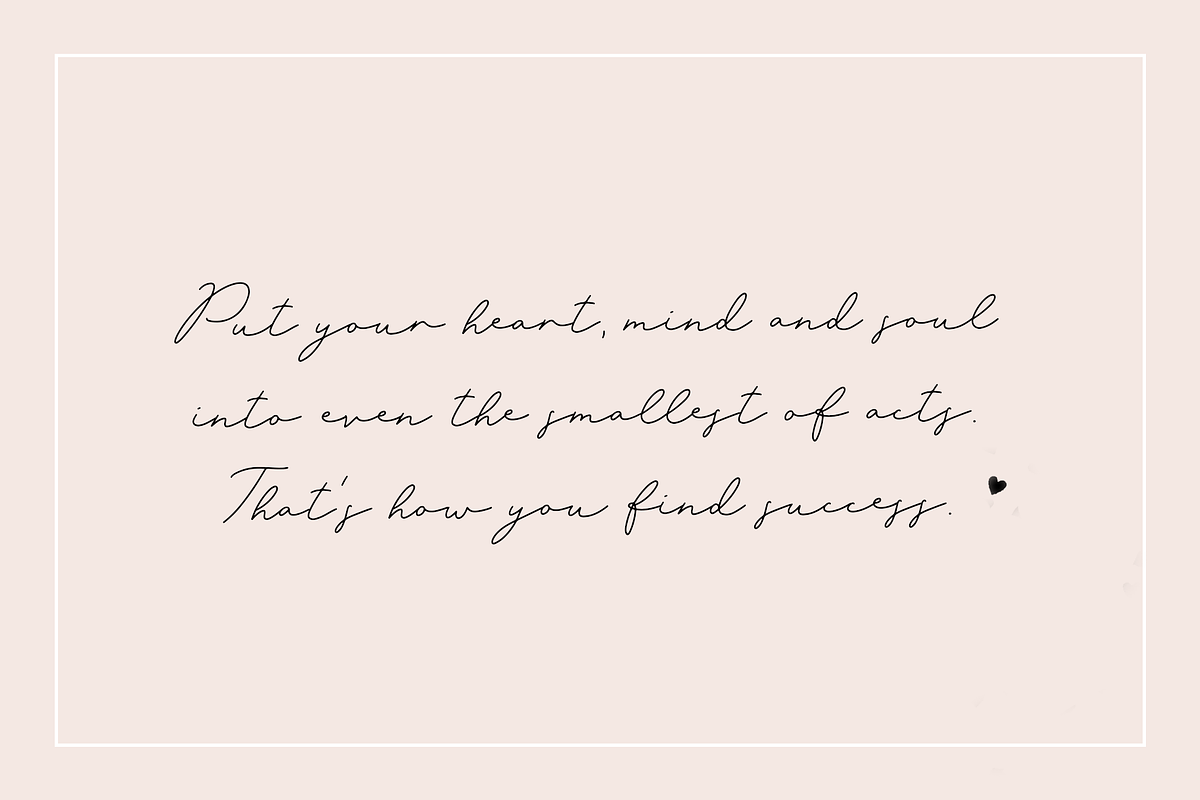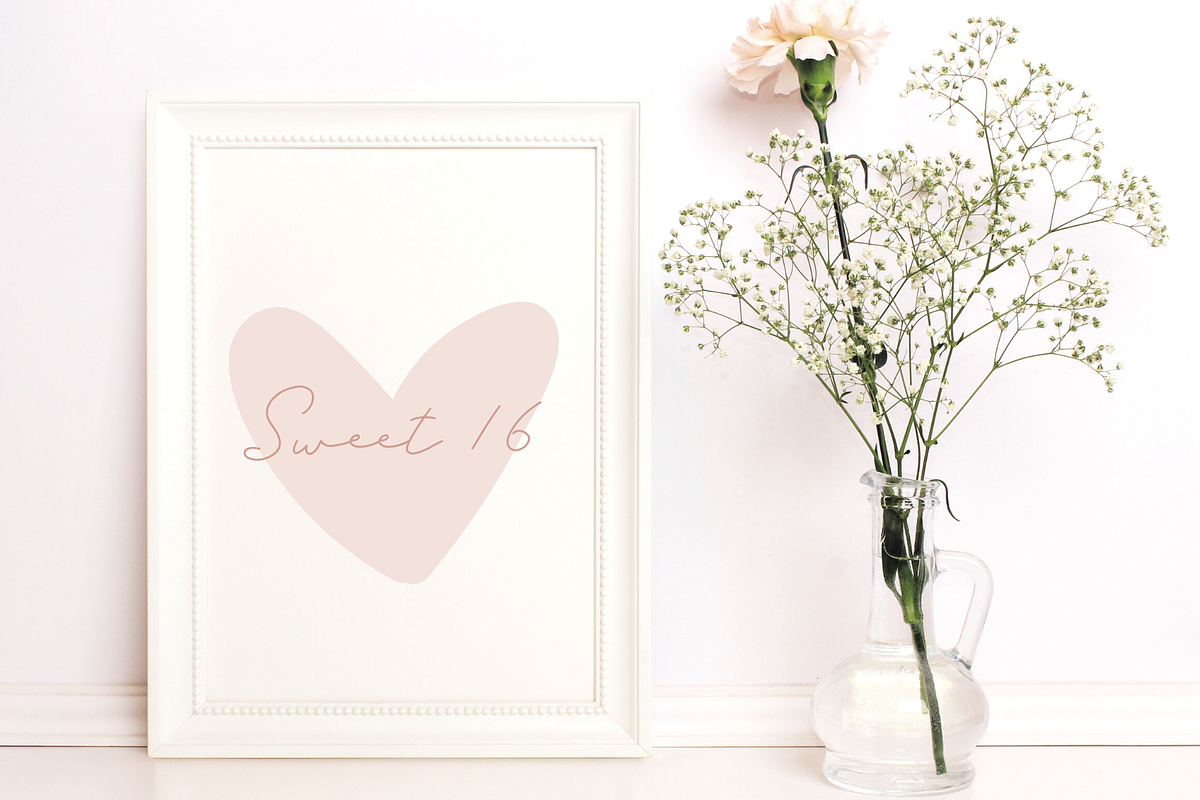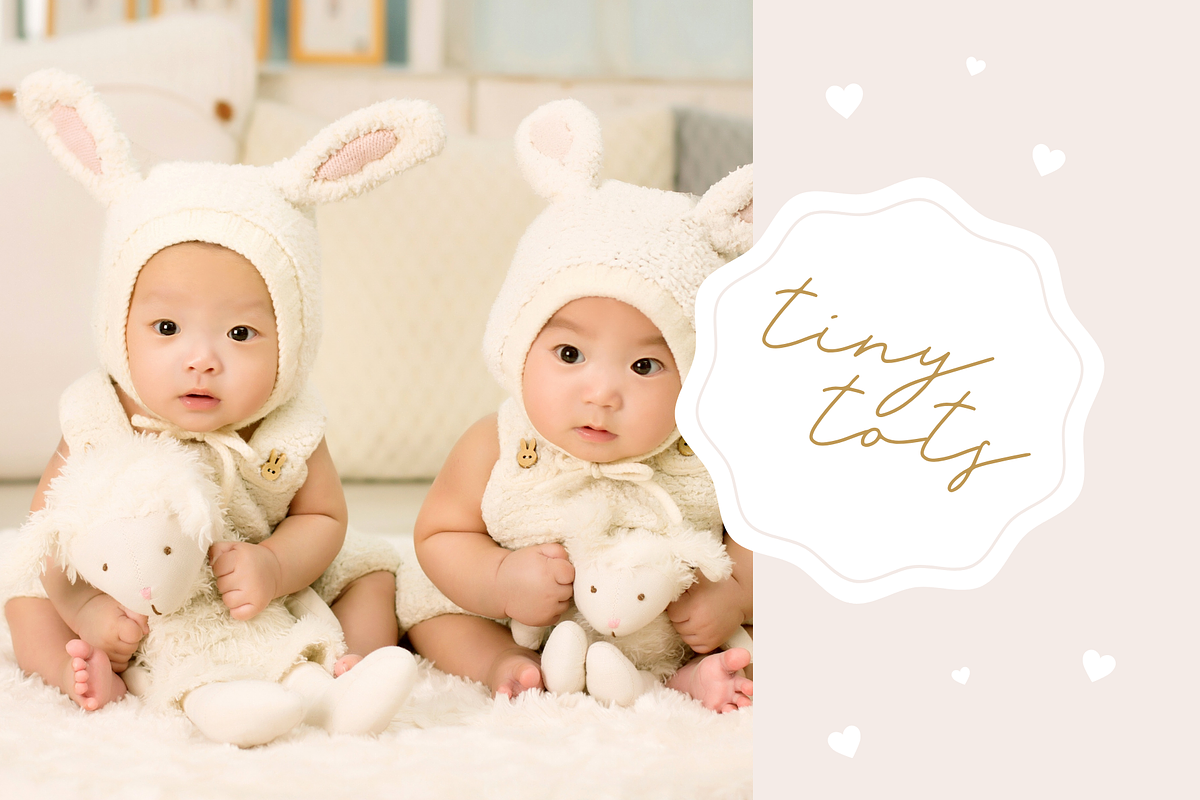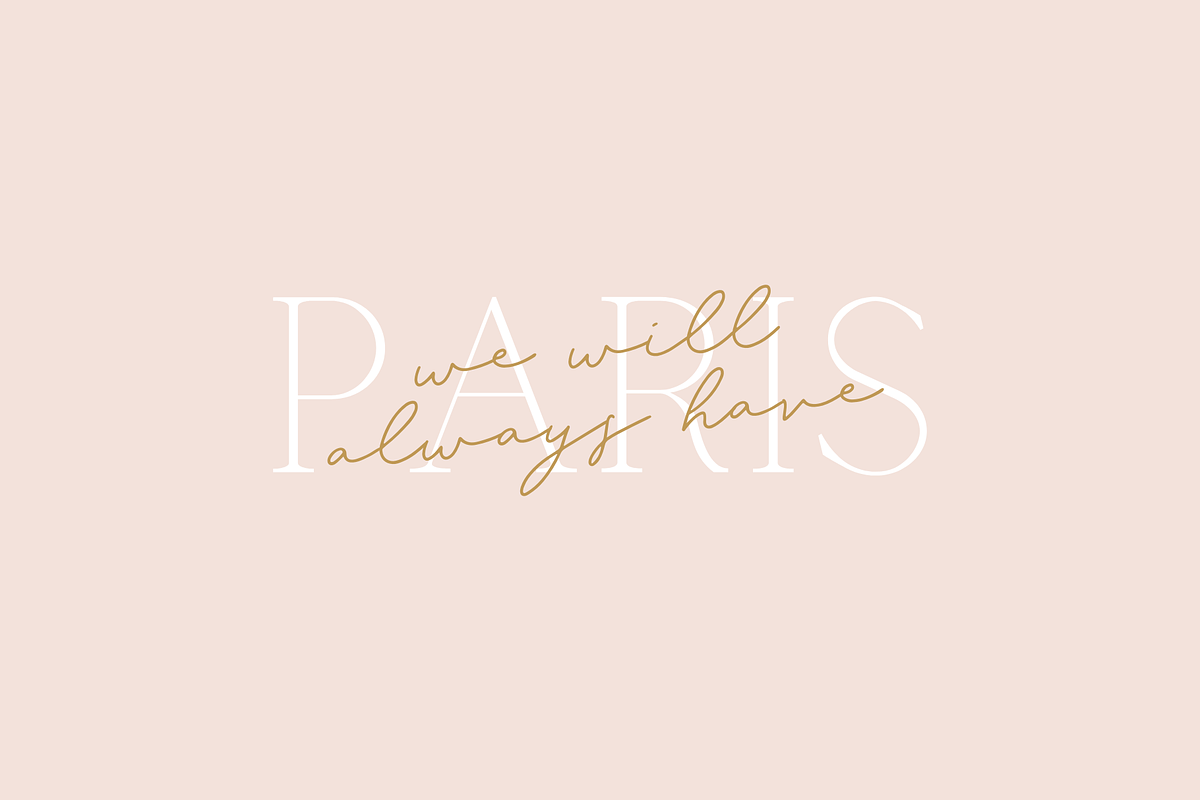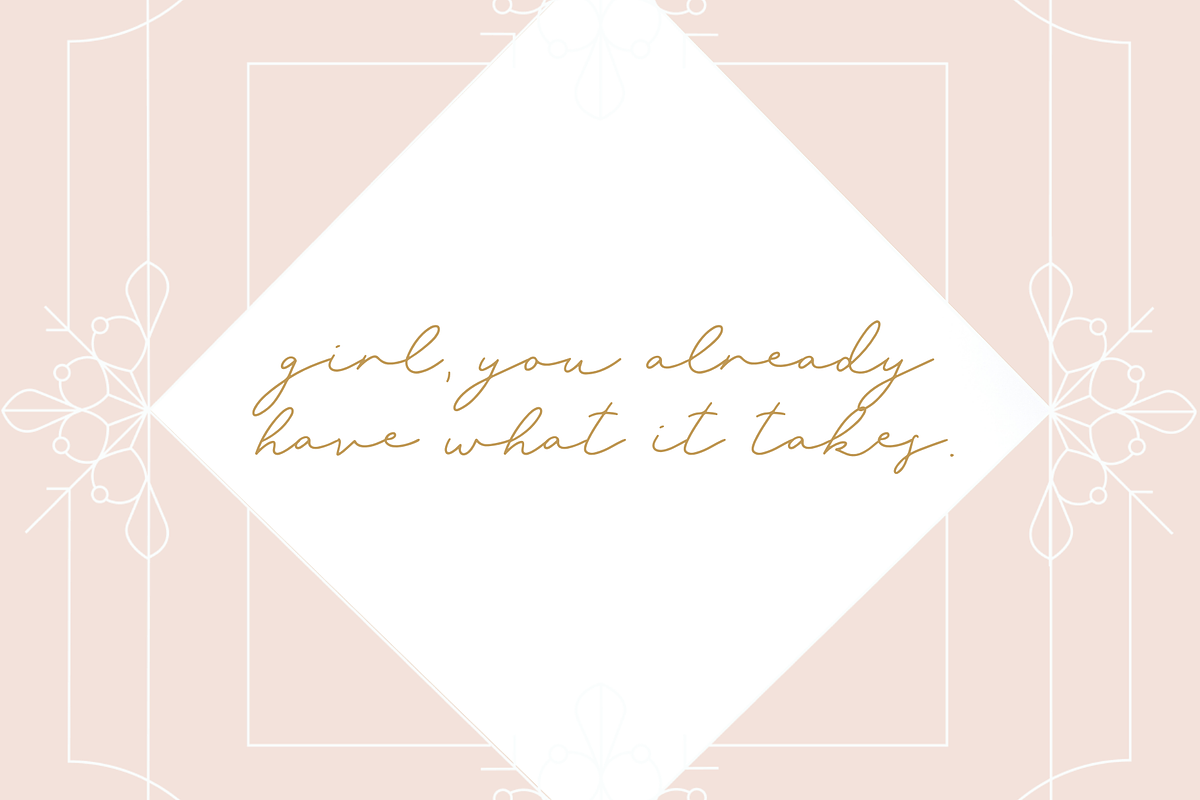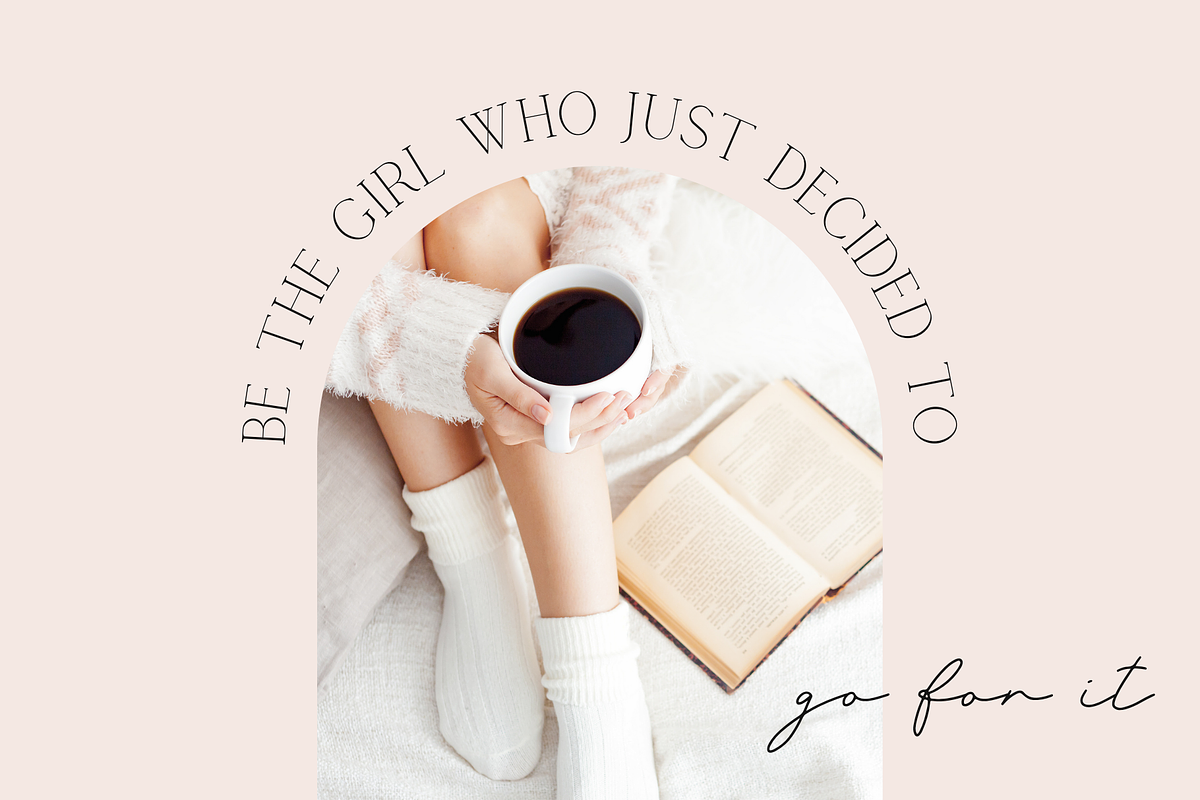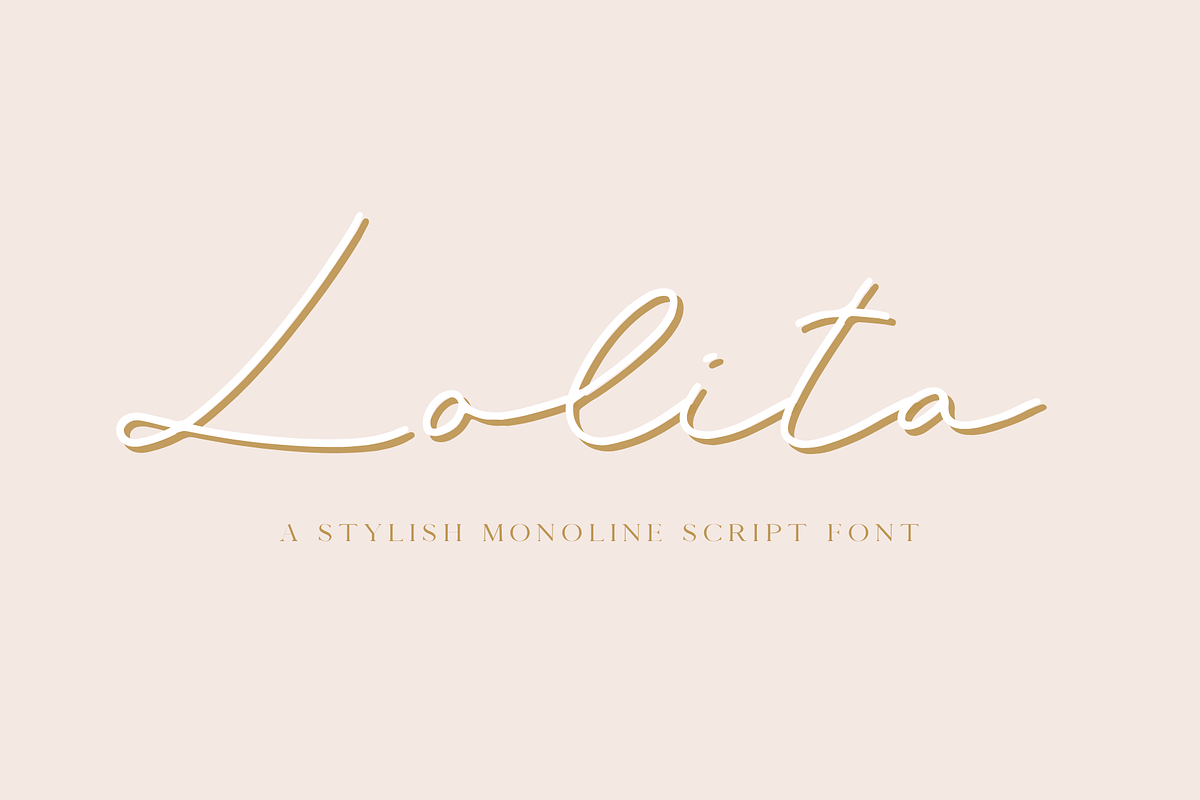
Lolita Script Font
Lolita script font by Blog Pixie is a stylish monoline handwritten font.
Perfect for smooth, silky handwriting that flows effortlessly and looks like a dream.
Use Lolita script for quotes, collages, print design, logos, magazine, eBooks, blogging and Instagram.